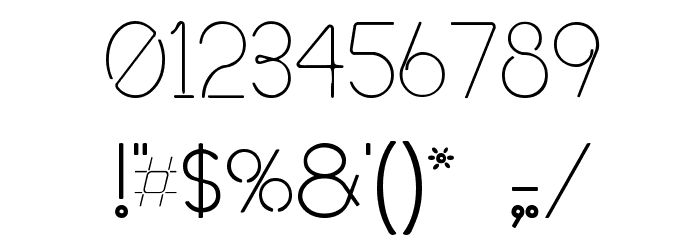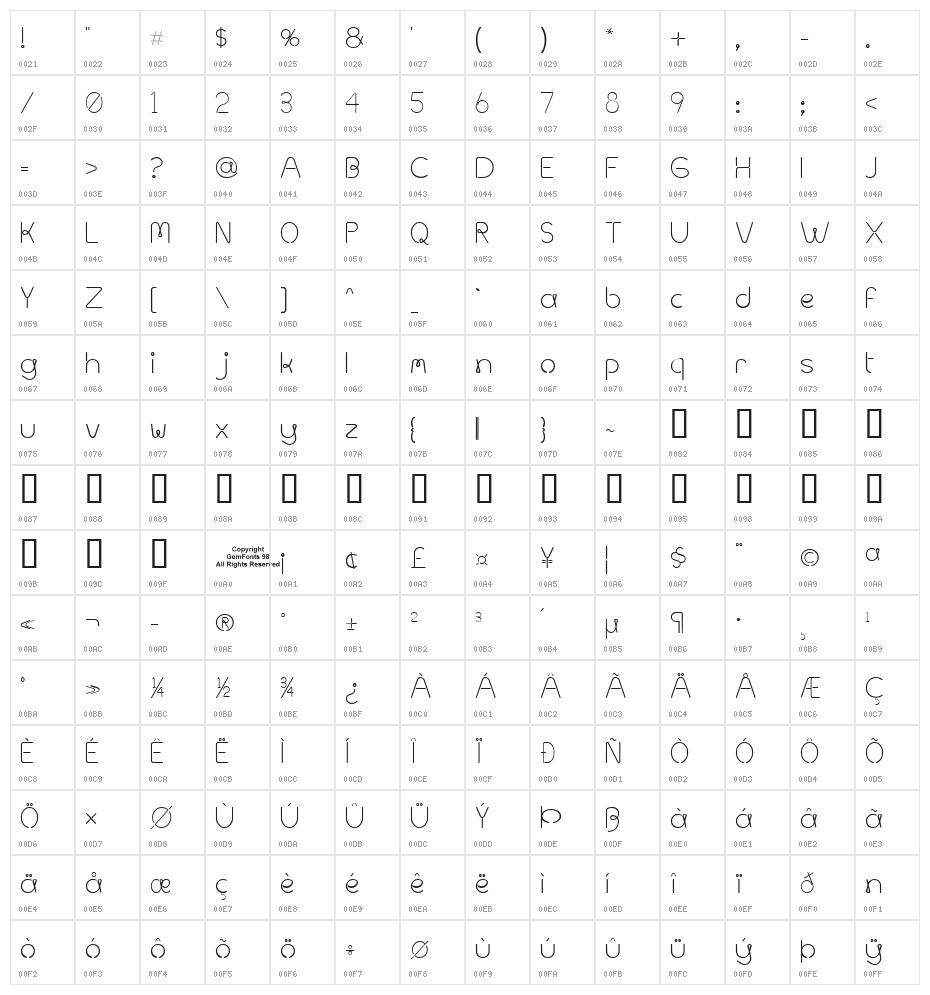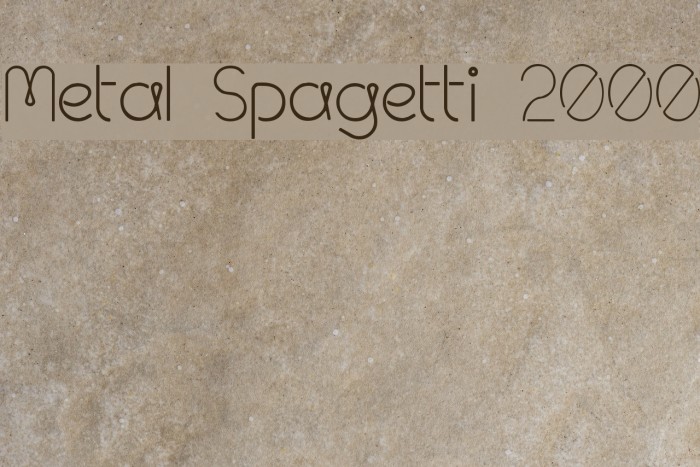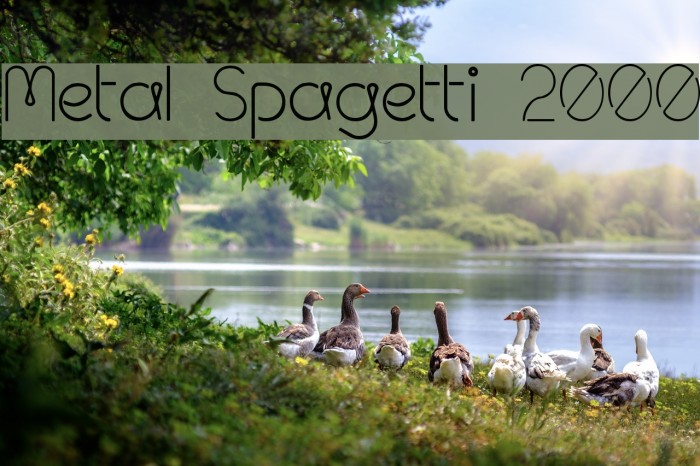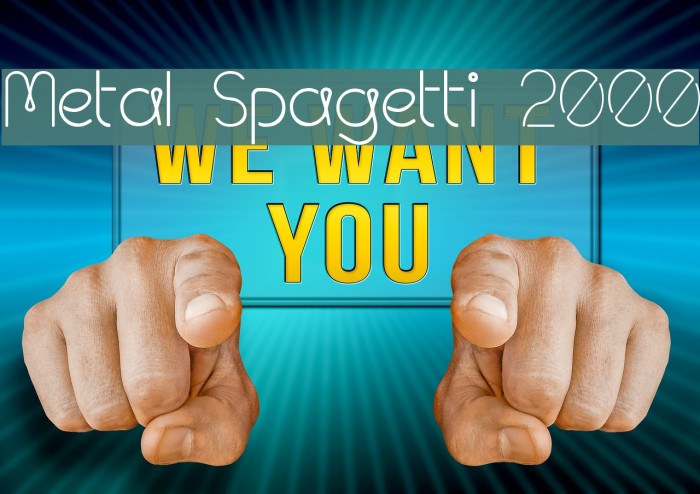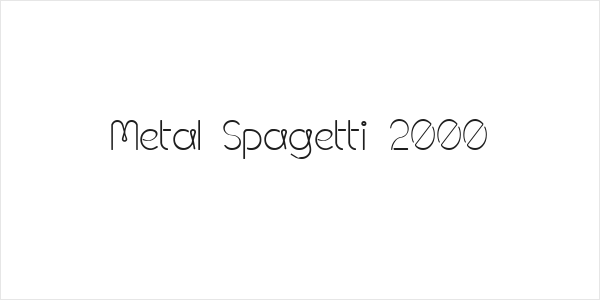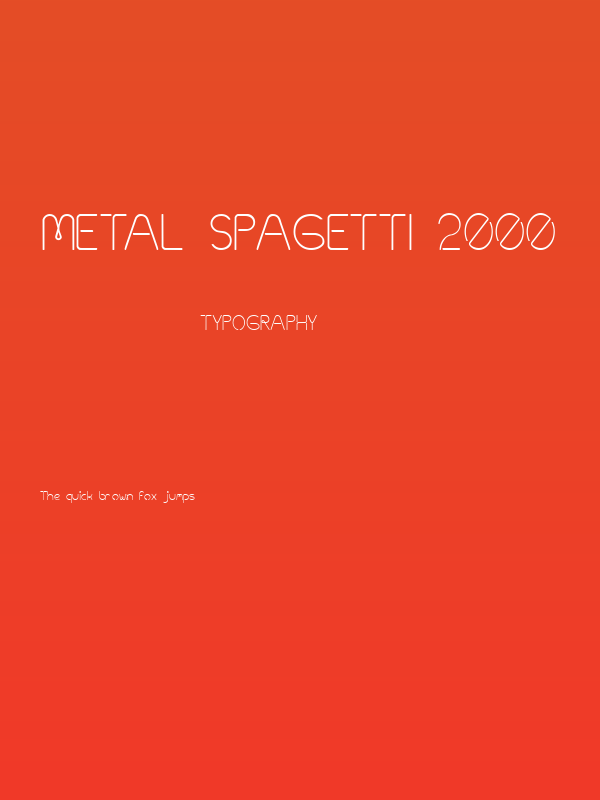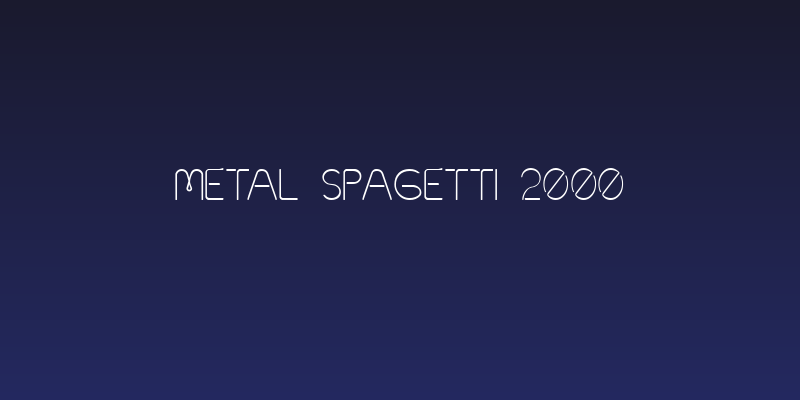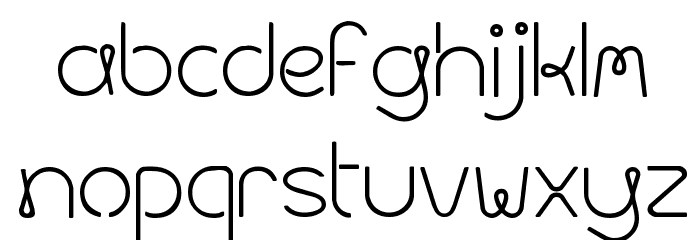
Metal Spagetti 2000 Font
Metal Spagetti 2000 Description
This font features a unique and playful design with a modern twist. The characters are crafted with a continuous, flowing line that gives it a spaghetti-like appearance, creating a sense of movement and fluidity. The uppercase letters maintain a consistent height, while the lowercase letters have a slightly whimsical touch with some characters featuring loops and curves. The numerals are distinct and maintain the same playful style, making them easily recognizable. Special characters are integrated seamlessly, adding to the font's versatility. The overall design is clean and minimalistic, yet it stands out due to its creative execution.